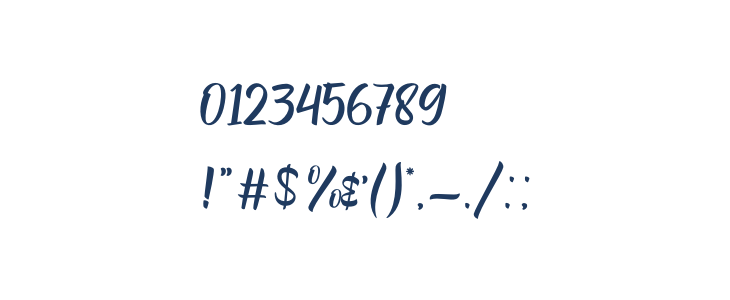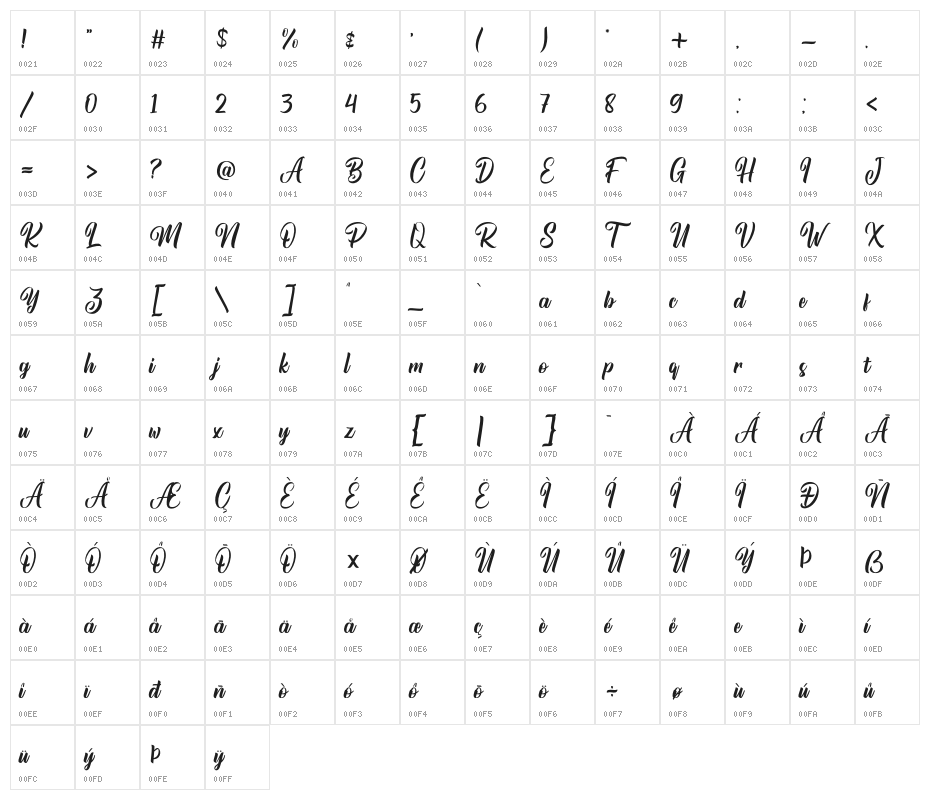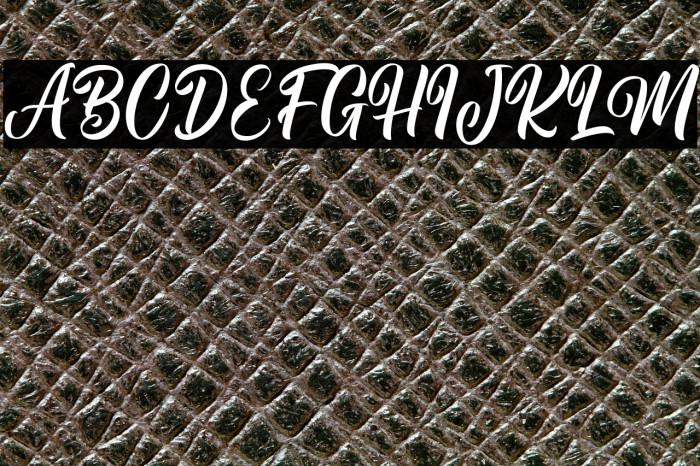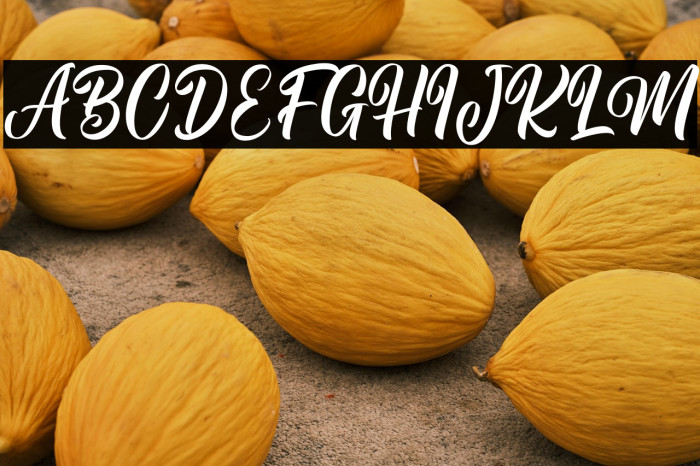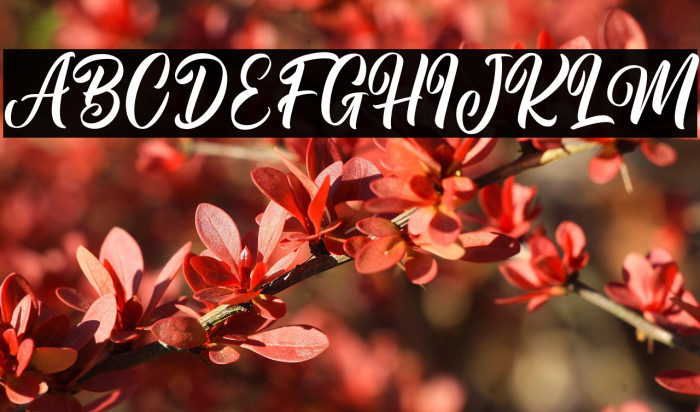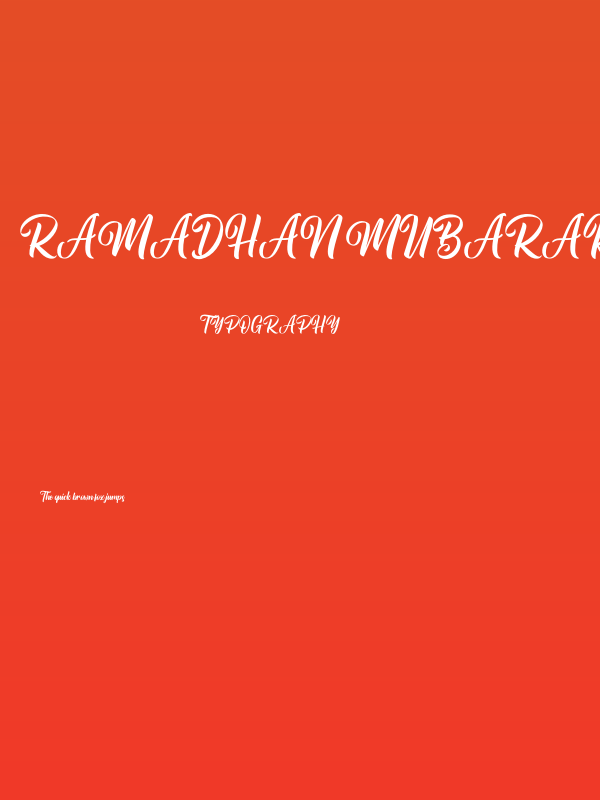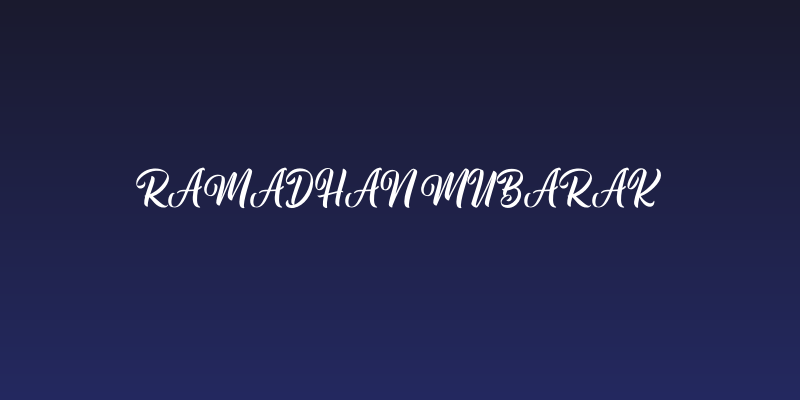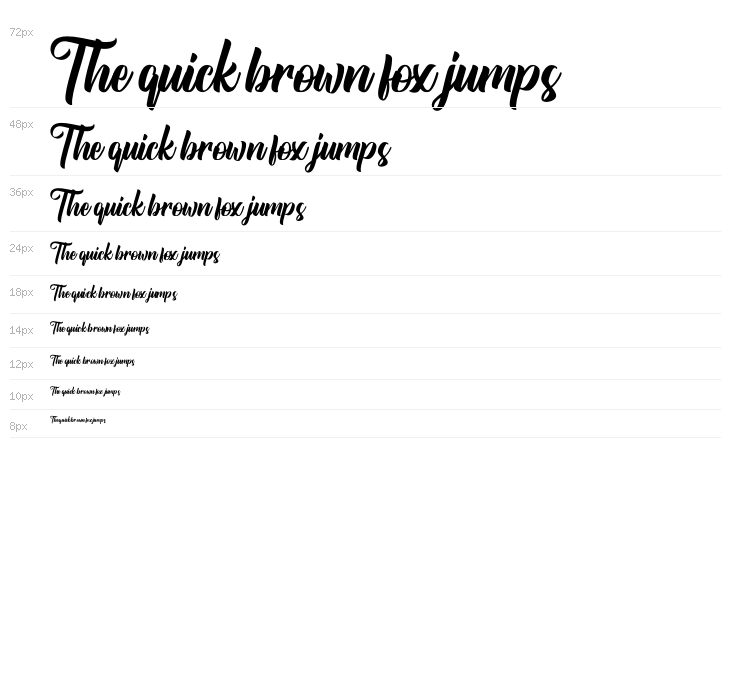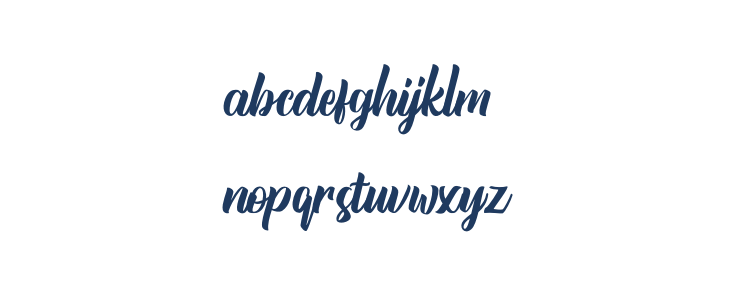
Ramadhan Mubarak Font
Ramadhan Mubarak Description
This font features a flowing, cursive style with elegant, sweeping strokes that give it a dynamic and lively appearance. The uppercase letters are bold and prominent, with intricate loops and curves that add a touch of sophistication. The lowercase letters maintain a consistent flow, complementing the uppercase with their smooth, rounded forms. Numbers and special characters are designed to match the overall aesthetic, ensuring a cohesive look across all text. The font's design is both artistic and readable, making it suitable for a variety of creative applications.